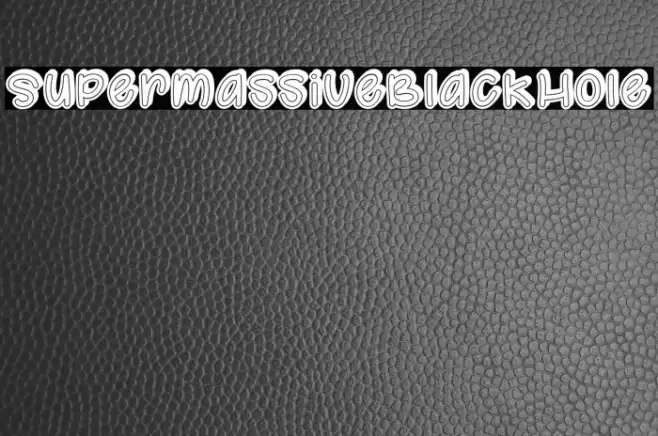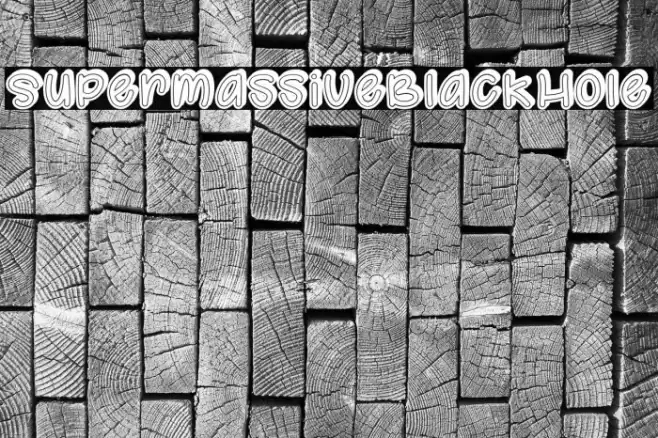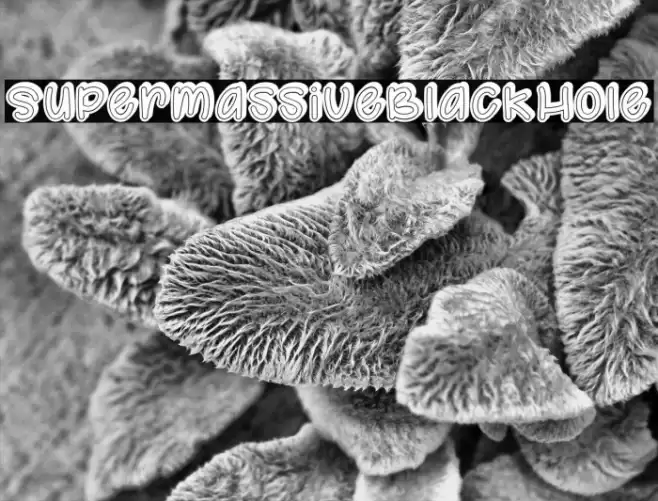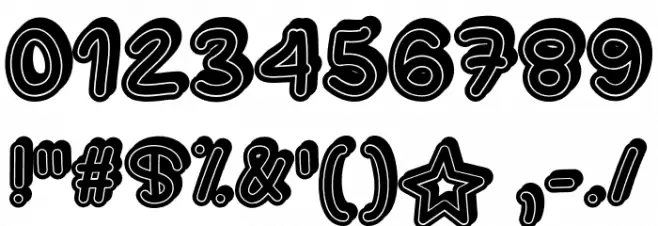
SupermassiveBlackHole Font
SupermassiveBlackHole Description
This font features a bold, playful style with thick, rounded outlines that give each character a bubble-like appearance. The letters are uppercase and lowercase, with a consistent width and a slightly condensed form. The numbers and special characters maintain the same playful aesthetic, making them ideal for eye-catching designs. The font's thick outlines create a strong visual impact, making it suitable for projects that require a fun and engaging look. The overall style is decorative and modern, with a touch of whimsy that adds character to any design.
A bold, playful font with thick, rounded outlines and a bubble-like appearance from Uncategorized fonts.
- Proposed Projects: Ideal for children's books, playful branding, party invitations, and eye-catching posters.